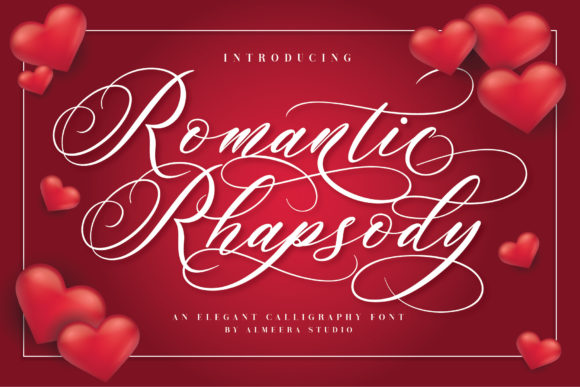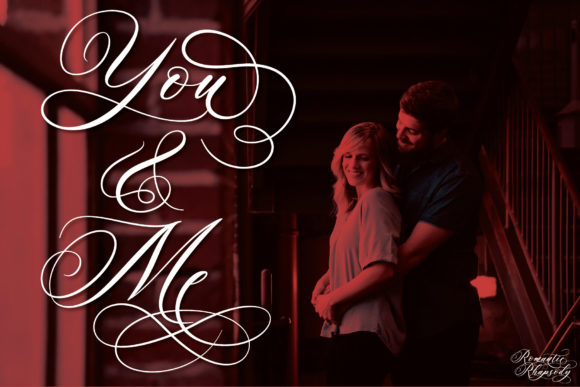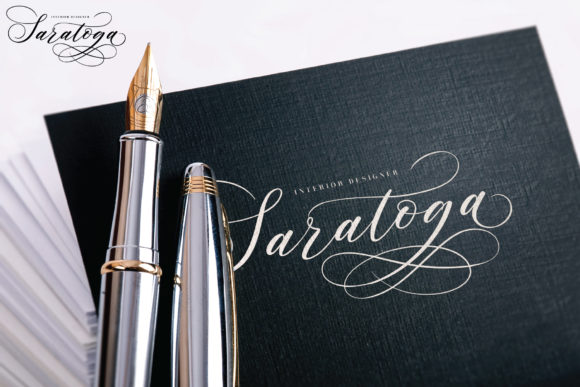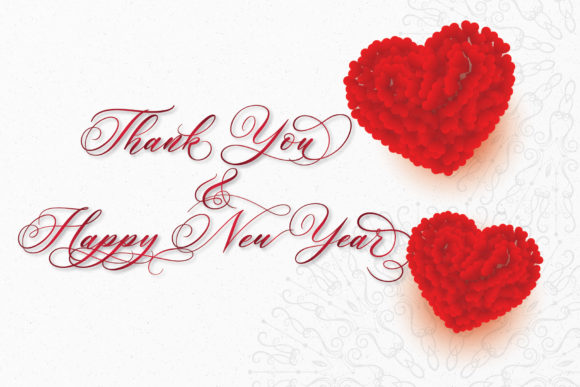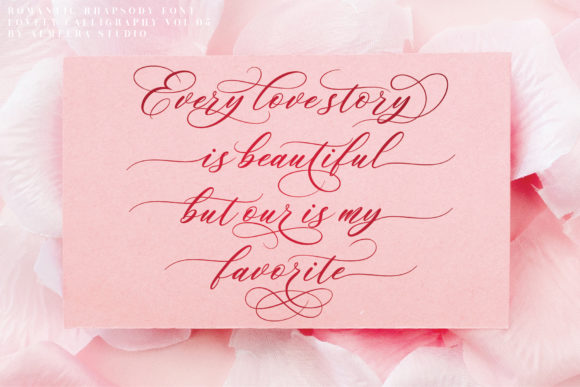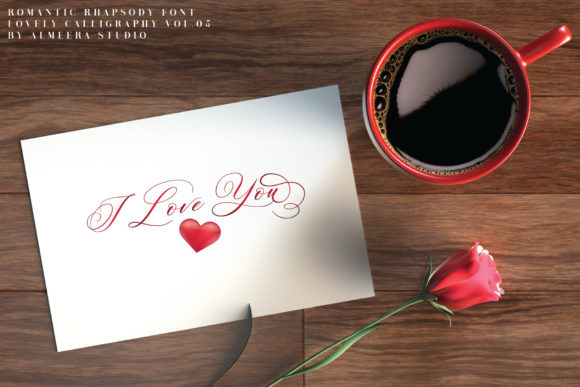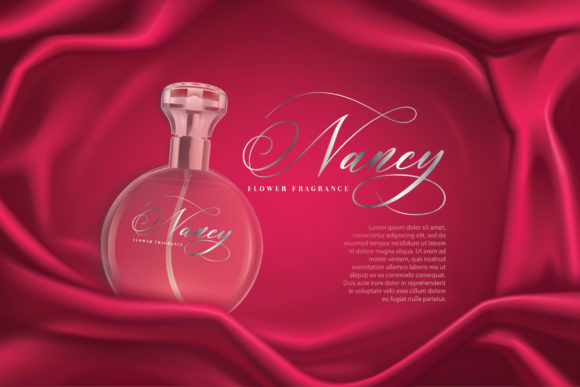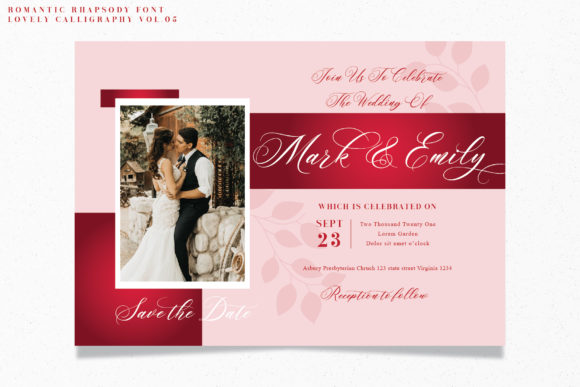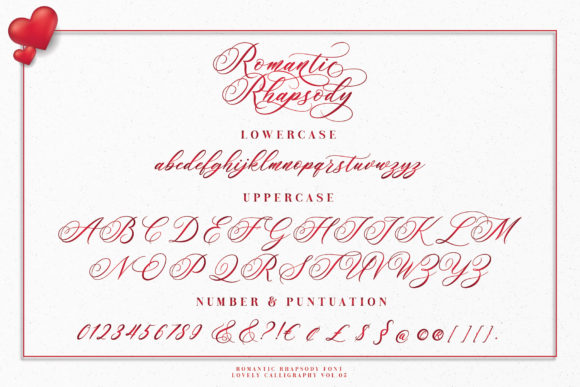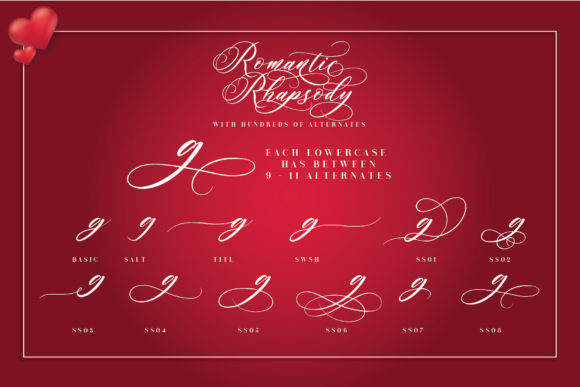
Romantic Rhapsody Font
About Romantic Rhapsody Font
Romantic Rhapsody is an elegant script font with a very luxurious appearance. Fall in love with its romantic look & feel!